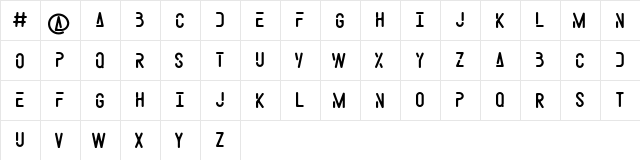
Space Weel Personal Use Regular
| Foundry | Andika Setiawan |
| Designer | Andika Setiawan |
Design Context for Space Weel Personal Use Typeface
Space Weel Personal Use takes a measured approach to typography — its balanced proportions and neutral character make it a reliable workhorse for both digital and print work.
Pro Tip: Use Space Weel Personal Use in both headline and body roles to test its range before committing to a single application.